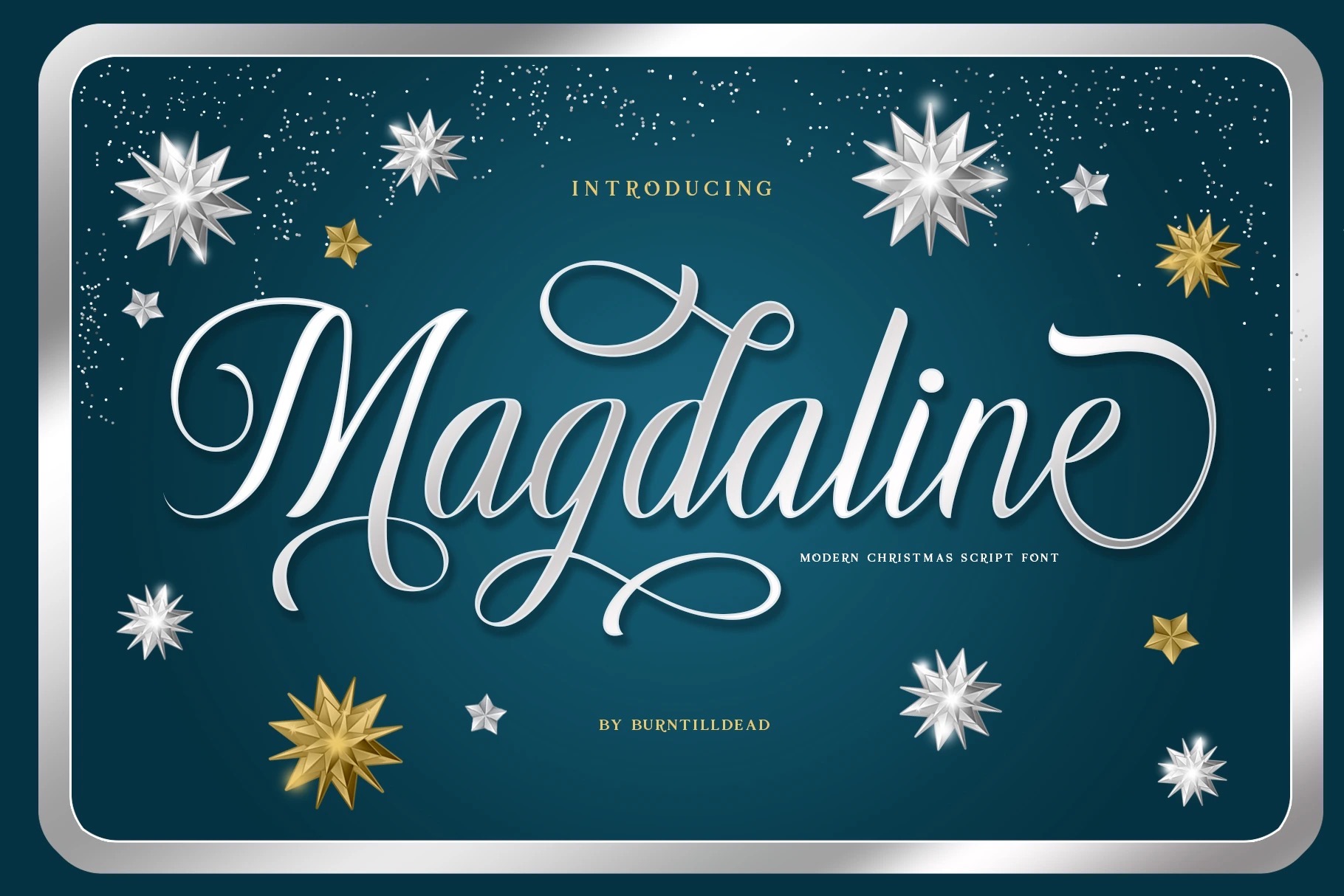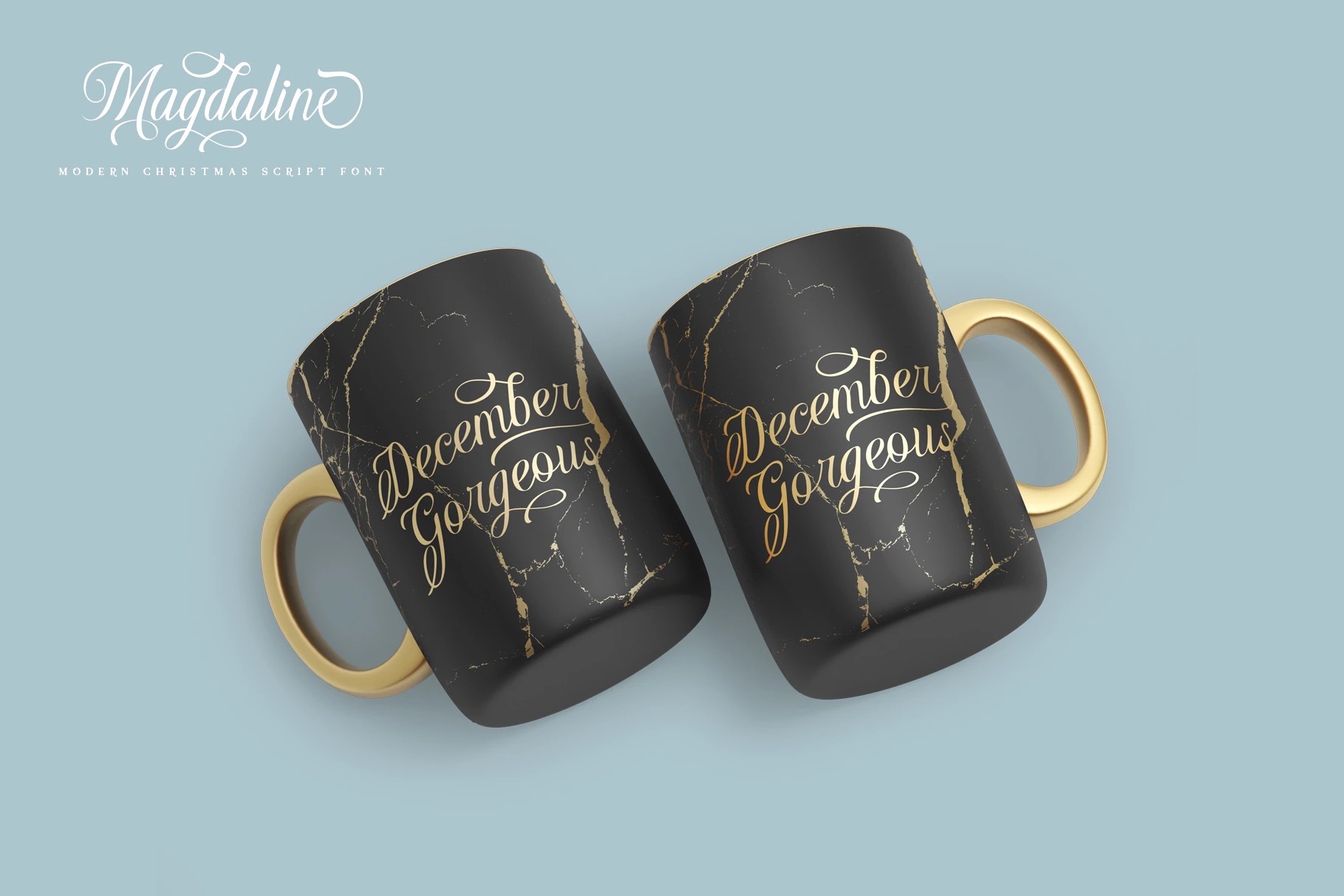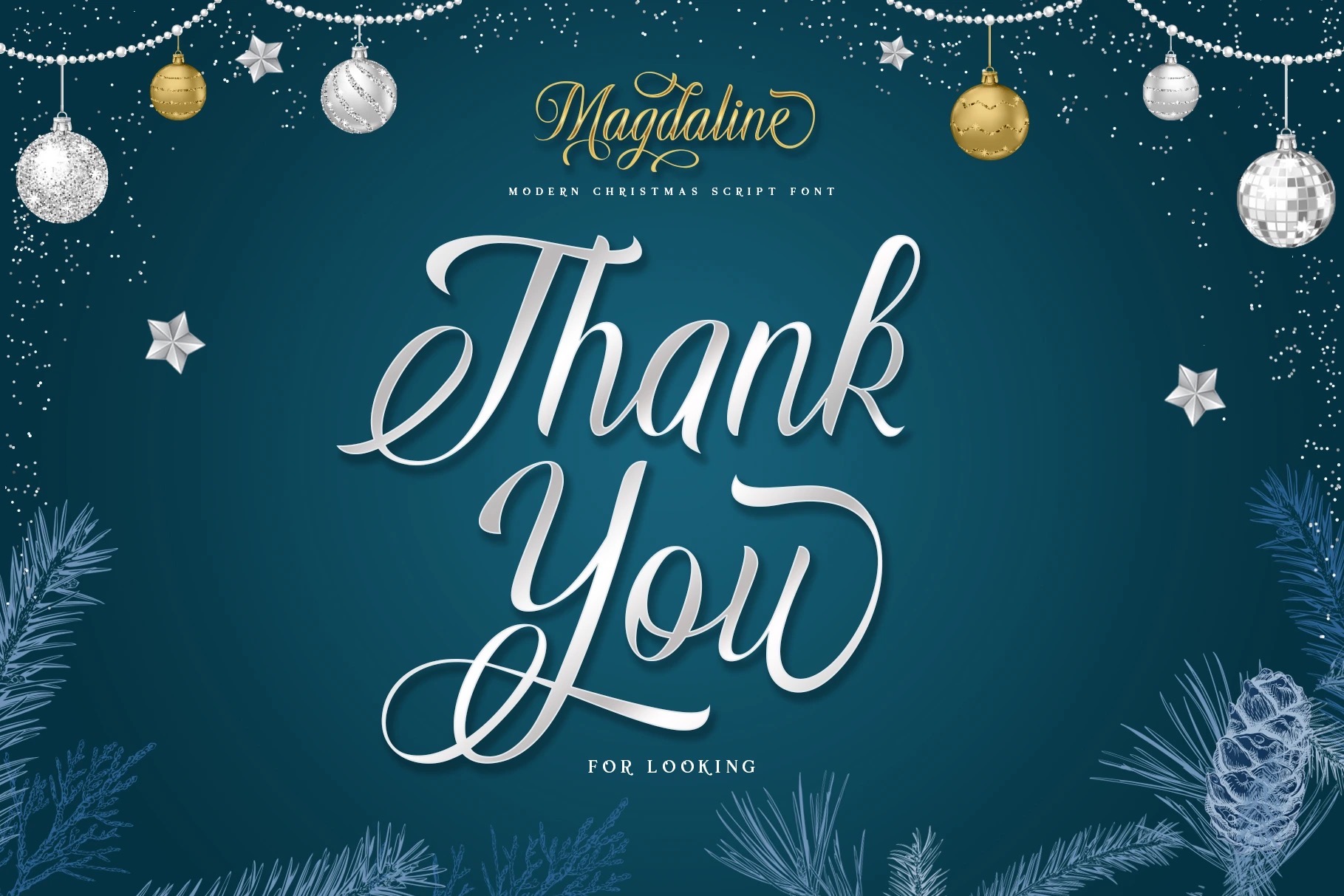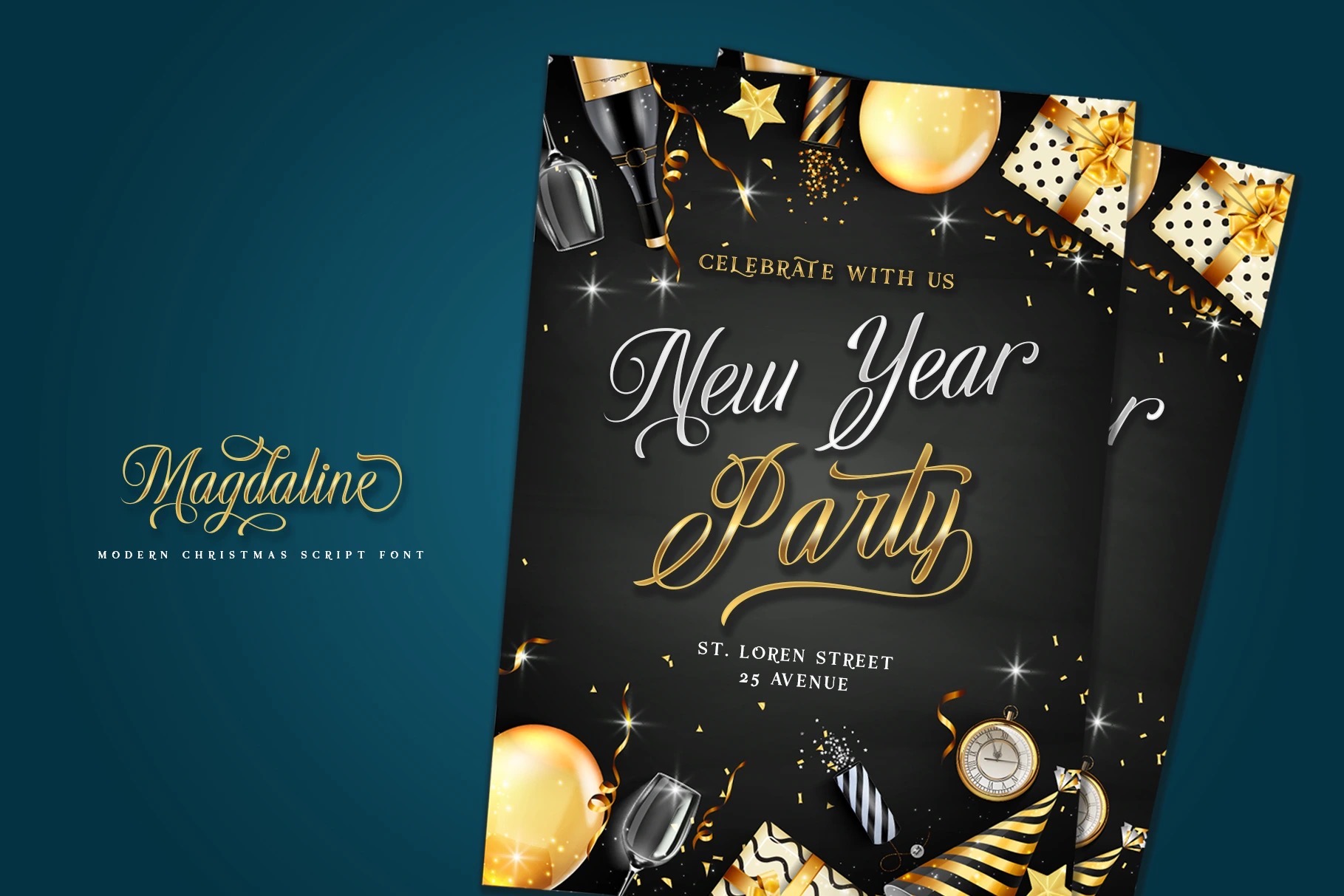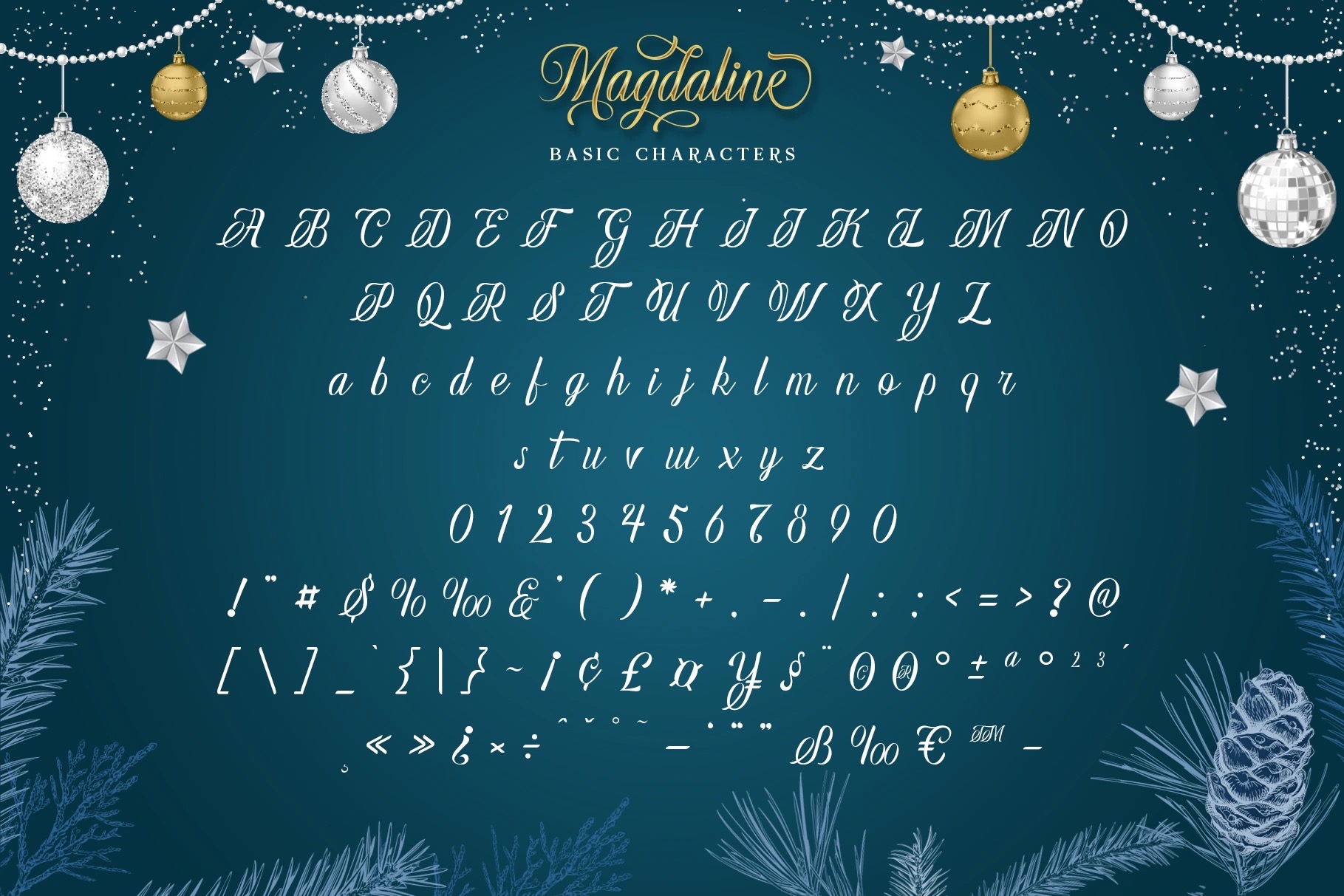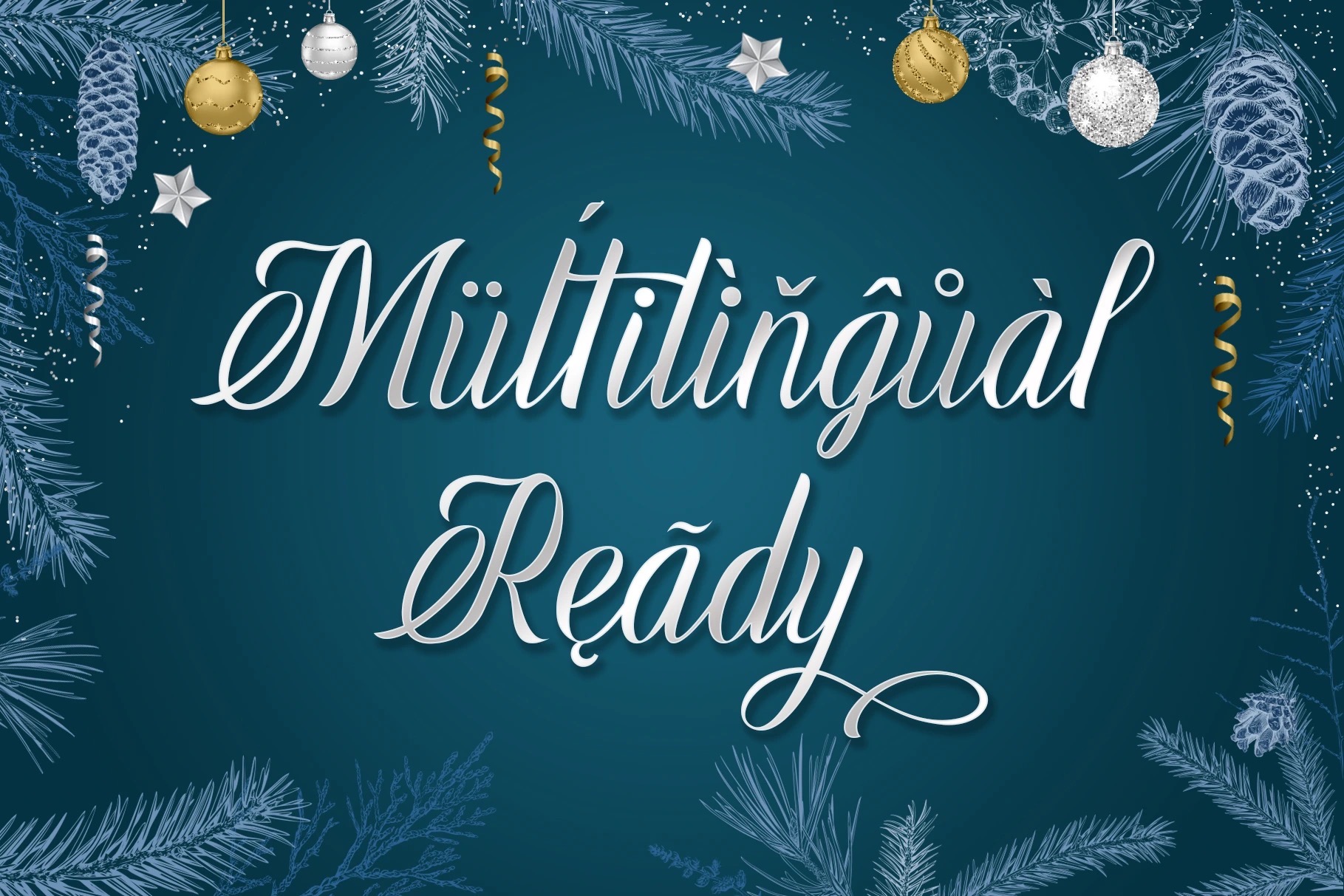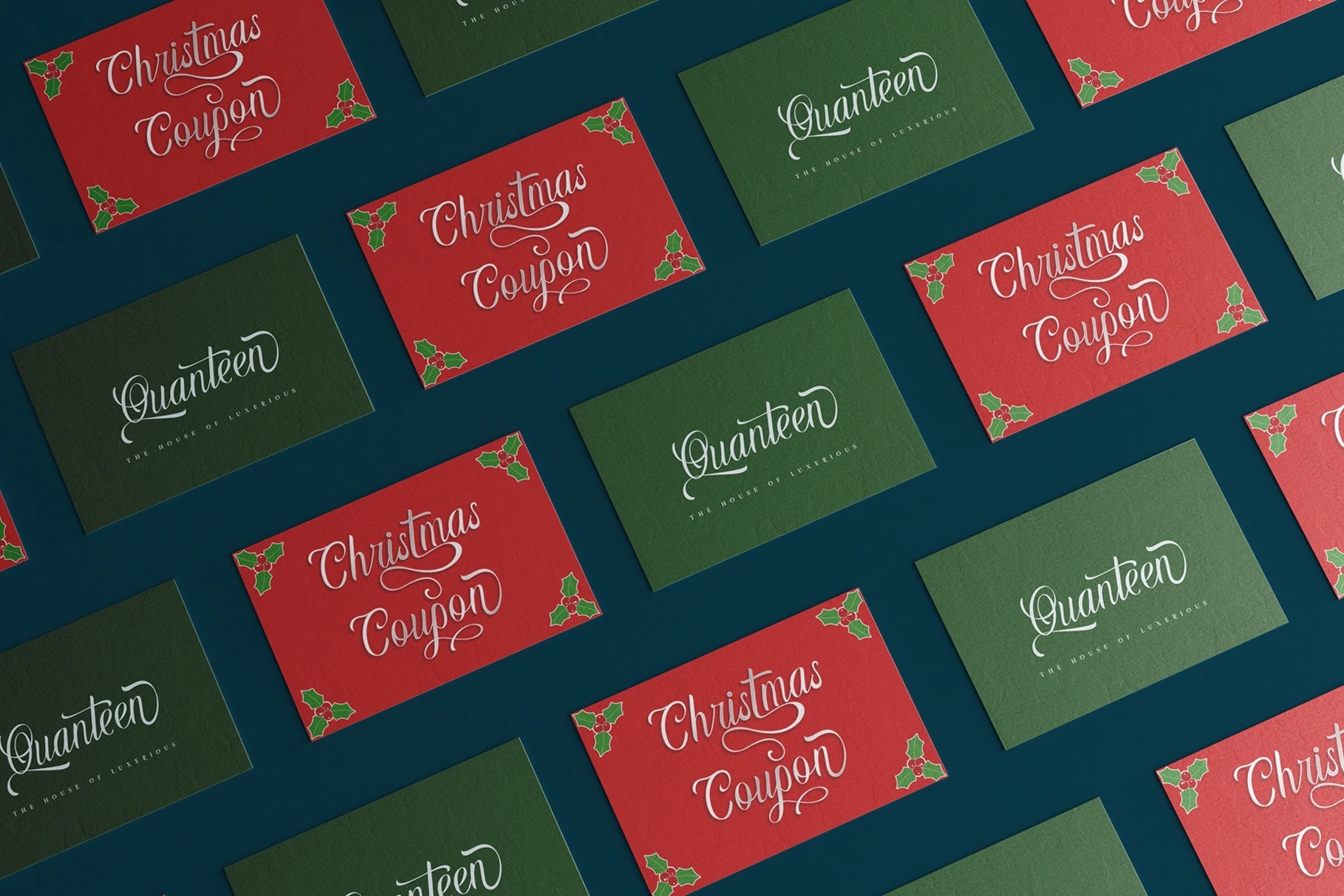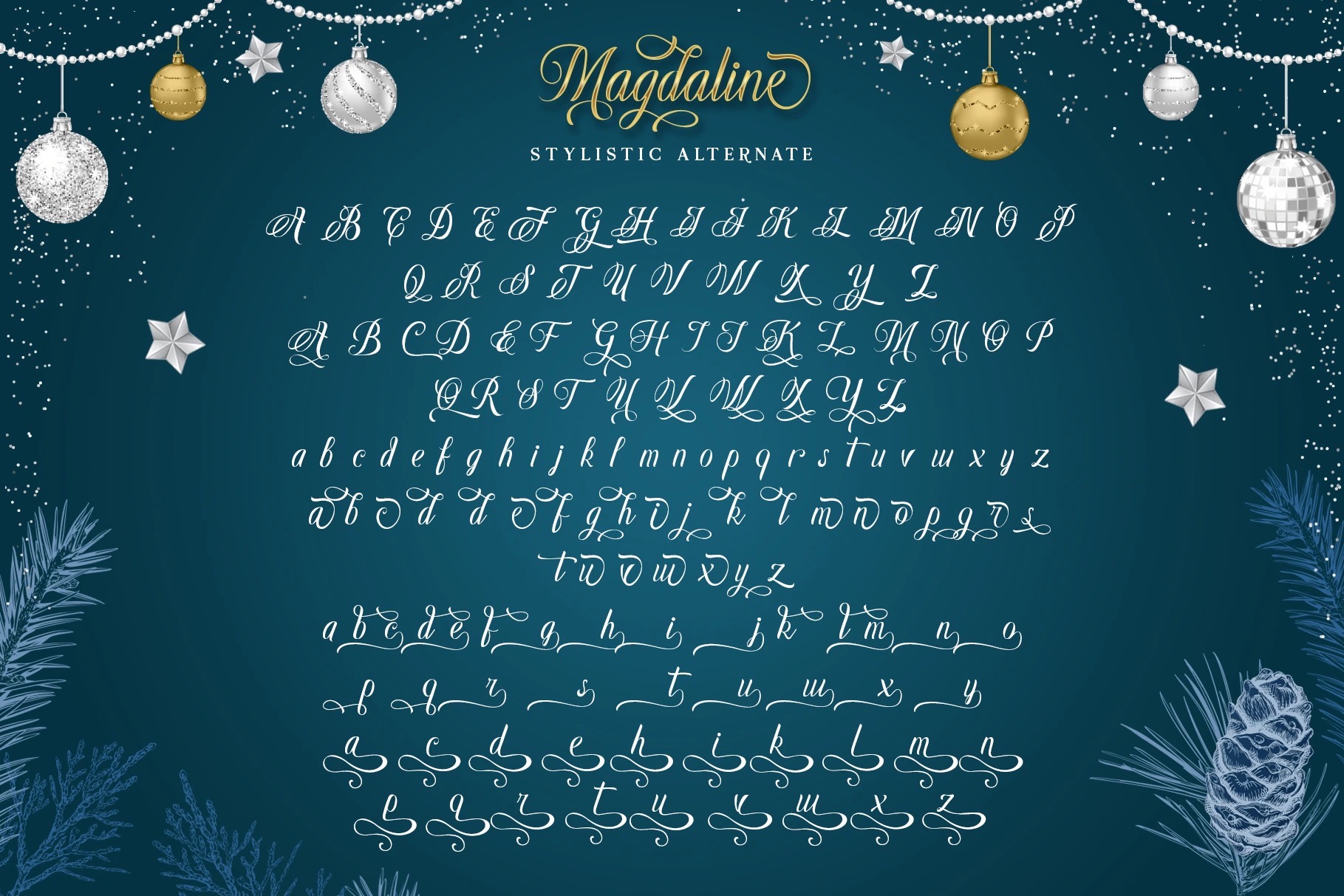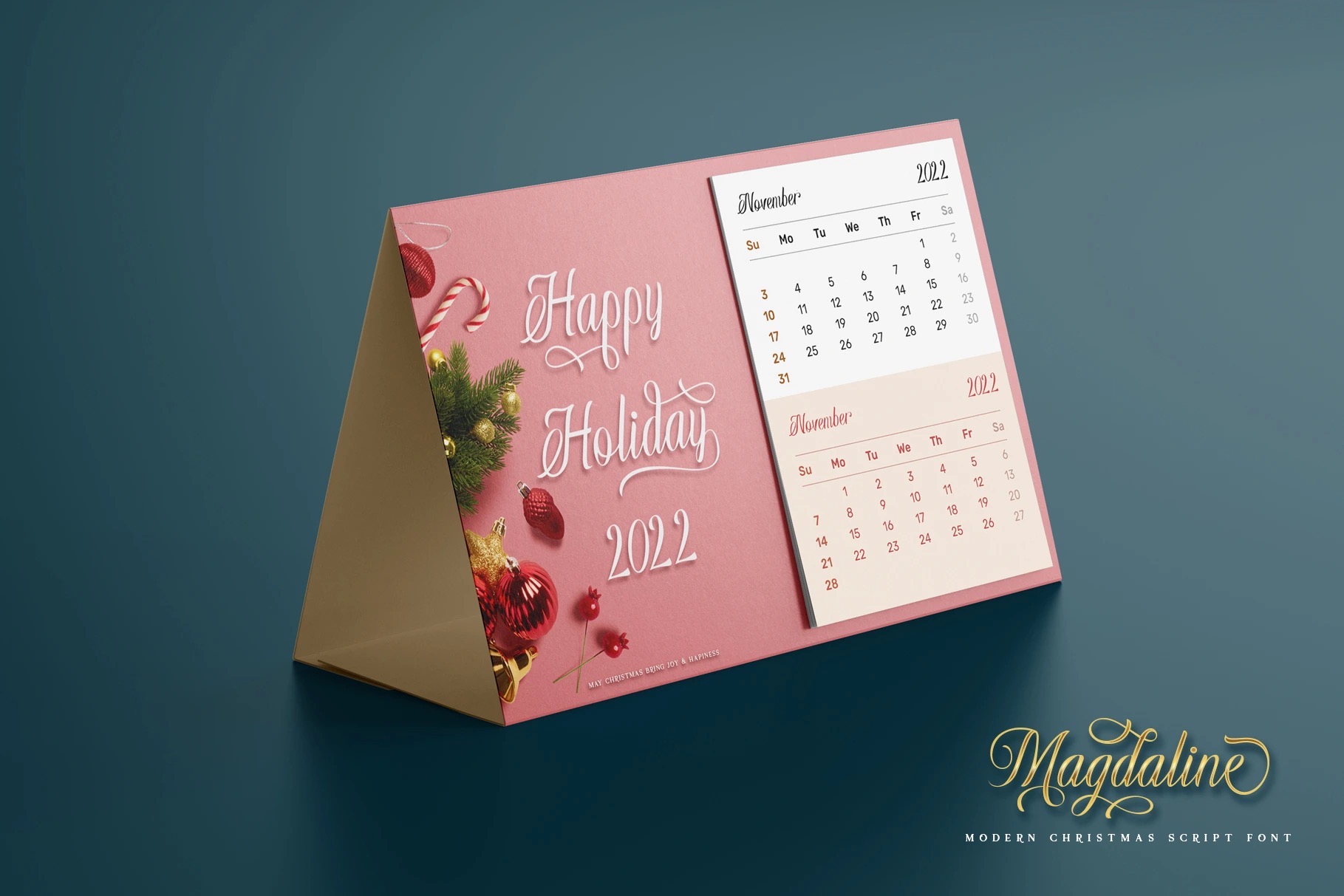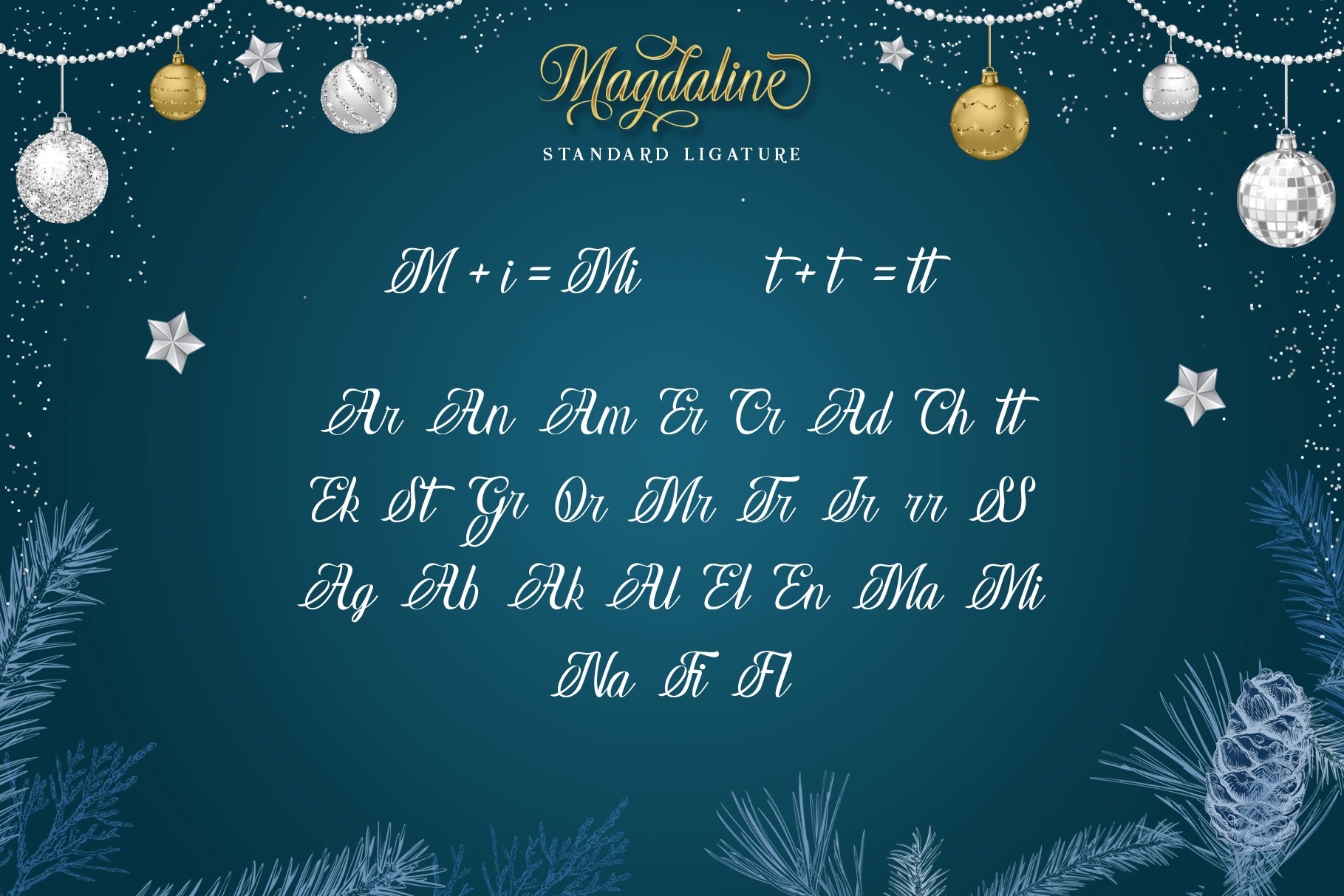
- Magdaline
Proudly present a beautiful font “Magdaline”, a modern & elegant script with Christmas & new year sign inspired.
Really great for the design of poster, Big sale sign, greeting card , packaging designs, New Year design and so on with the elegant Christmas & new year concept